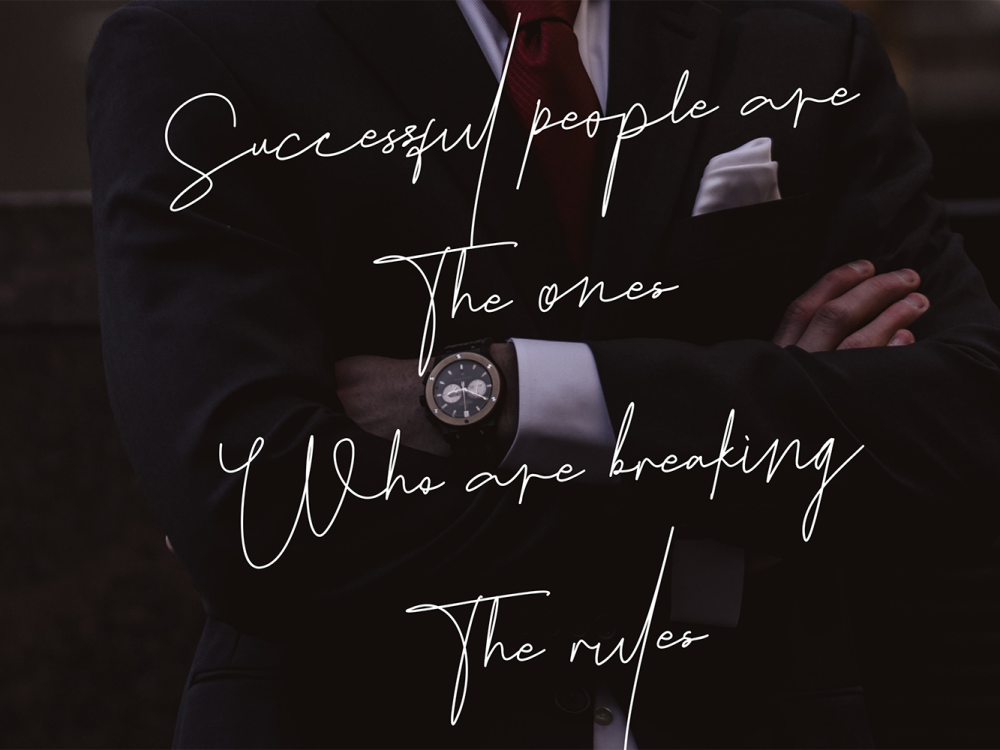
Embrace the beauty of Oshawa Free Font, a signature font exuding a seamless blend of natural charm and professionalism. This versatile font is the perfect choice for crafting handwritten-style logos, elegant wedding stationery, distinctive photographer watermark logos, and contemporary websites with a touch of finesse. Enhancing its appeal, Oshawa comes equipped with handwritten ligatures that infuse a delightful natural angle to your designs. Let Oshawa elevate your projects with its authentic and captivating touch. If you like it don’t forget to check out the full version.